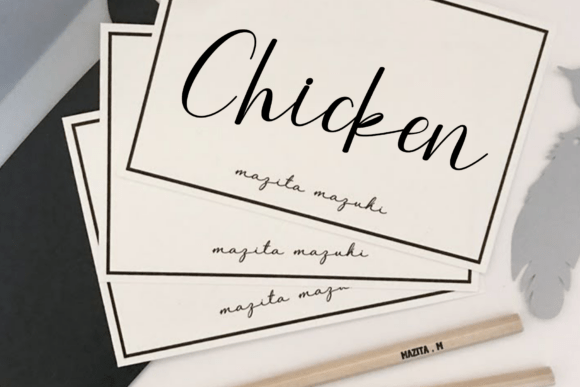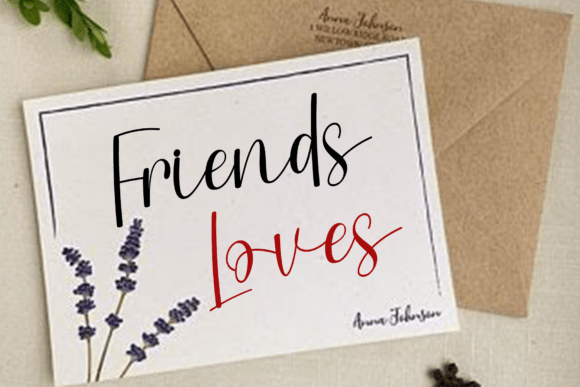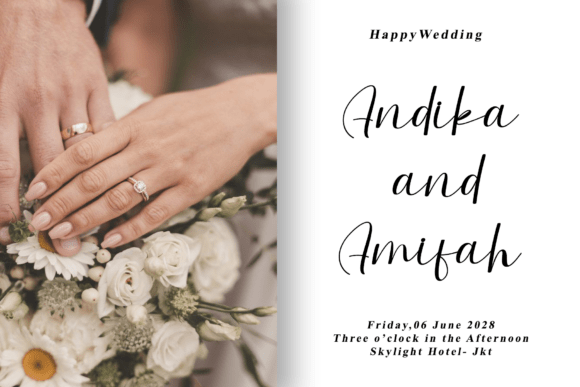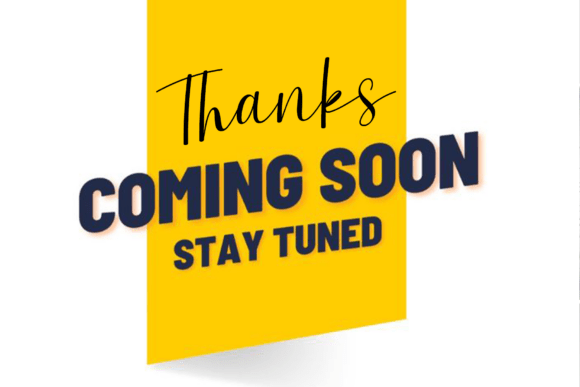
Introducing Graduates Font: A Timeless Handwritten Delight
Are you on the hunt for a font that exudes elegance, sophistication, and a touch of playfulness? Look no further than Graduates Font, a lovely and timeless handwritten font that’s perfect for creating eye-catching logos, branding, and quotes. With its unique and beautiful touch, every letter is sure to make your design come alive!
The Perfect Choice for Designers and Crafters
Graduates Font is a versatile and charming font that’s ideal for a wide range of design projects. Whether you’re a professional designer or a crafter looking to add a personal touch to your work, this font is sure to impress. Its elegant and cursive script makes it perfect for:
• Creating stunning logos and branding materials that leave a lasting impression
• Designing beautiful quotes and typography that inspire and motivate
• Adding a personal touch to your craft projects, such as handmade cards, invitations, and scrapbooking
What Sets Graduates Font Apart
So, what makes Graduates Font so special? Here are just a few features that set it apart from other fonts:
• Unique and Beautiful Touch: Every letter in Graduates Font has a unique and beautiful touch that adds a level of sophistication and elegance to your designs.
• Timeless Appeal: This font has a timeless quality that ensures your designs will remain stylish and relevant for years to come.
• Handwritten Charm: The handwritten nature of Graduates Font gives it a warm and inviting feel that’s perfect for creating personal and engaging designs.
Tips for Using Graduates Font
To get the most out of Graduates Font, here are a few tips to keep in mind:
• Experiment with Different Sizes: Graduates Font looks great in a variety of sizes, from large and bold to small and delicate. Experiment with different sizes to find the perfect fit for your design.
• Pair with Other Fonts: Graduates Font pairs beautifully with other fonts, such as sans-serif fonts for a modern contrast or serif fonts for a more traditional look.
• Use for Headlines and Titles: The elegant and cursive script of Graduates Font makes it perfect for headlines and titles. Use it to add a touch of sophistication to your designs.
Why Designers and Crafters Love Graduates Font
Graduates Font has quickly become a favorite among designers and crafters, and for good reason. Here are just a few reasons why:
• High-Quality Design: The font is designed with high-quality and precision in mind, ensuring that your designs look professional and polished.
• Versatility: Graduates Font is versatile and can be used for a wide range of design projects, from logos and branding to quotes and craft projects.